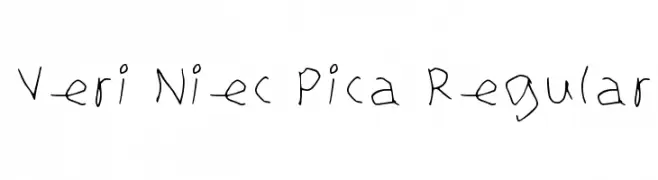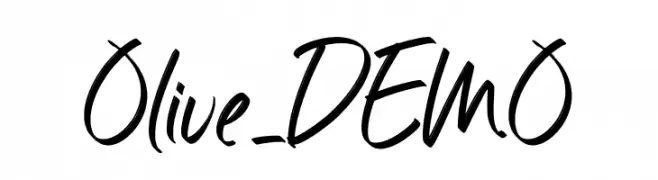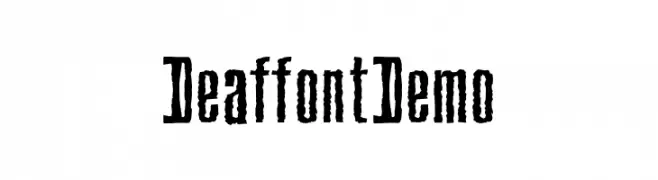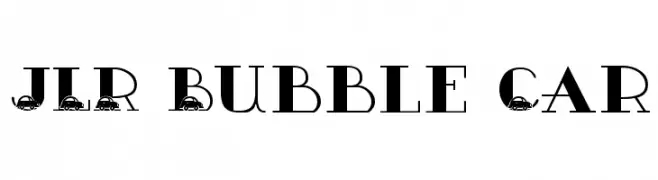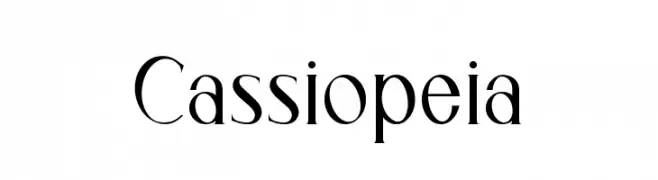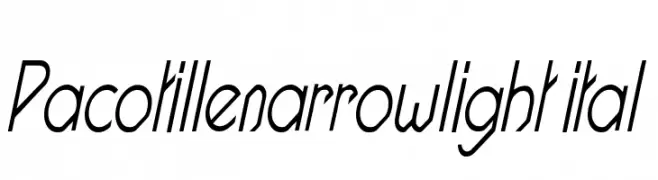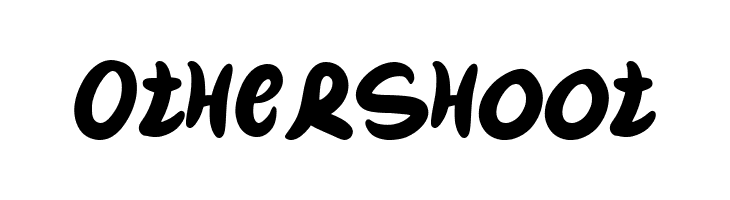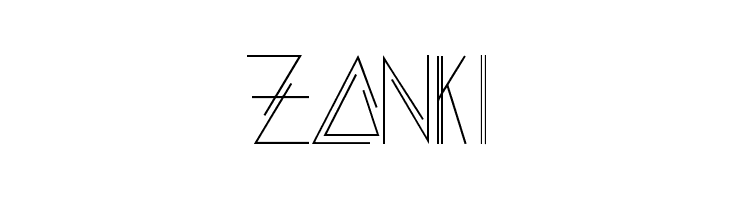
A playful, informal handwritten font with irregular strokes and a whimsical style.
A modern, structured font with a square, box-like design for high readability.
A modern, italic font with a sleek and professional appearance.
A playful, handwritten font with a casual and friendly appearance.
A bold, handwritten font with dynamic and expressive strokes.
A bold, distressed font with a rugged, textured appearance.
A playful serif font with integrated car graphics on each letter.
A bold, angular font with a modern twist on traditional calligraphy.
A modern serif font with high contrast and elegant, refined lines.
A sleek, narrow, and italicized font with a modern and elegant style.